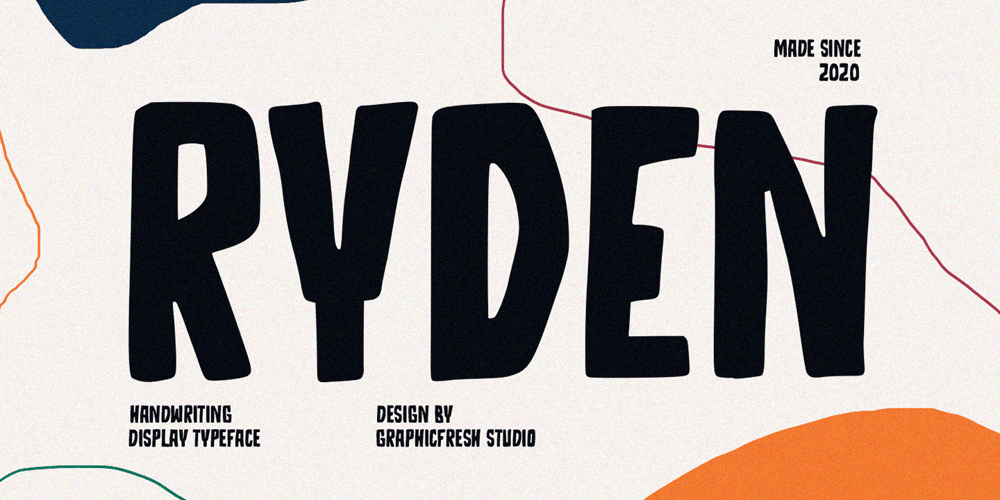
Ryden Font Family was designed by Muhammad Husni Haikal and published by Graphicfresh. Ryden contains 4 styles and family package options. Ryden – A Handwriting Display FontIn making this font, I spent a lot of time thinking about handwriting with a display style. Each letter is carefully made to look as natural as possible. This font is suitable for use in brands or logos with the theme of handwriting. I hope you like the font we made.Thanks